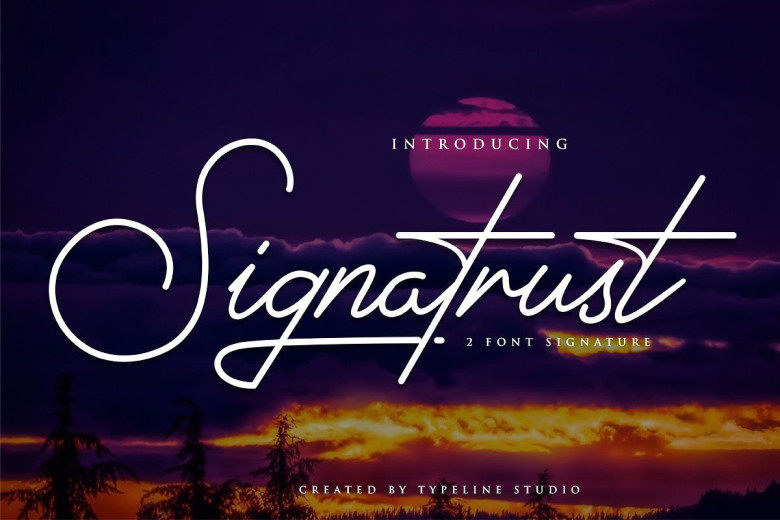
Signatrust Elegant Font
Hello…!! Great to see you :). This is new modern script font. If you are looking for a brand signature font. Come with script modern script style will make your brand looks premium with hand crafted feeling. Introducing Signatrust Font. This font is perfect for writing names, logos, wedding, letterhead, magazines, and whatever you want. you choose the matching font, signatrust 1 or signatrust 2.